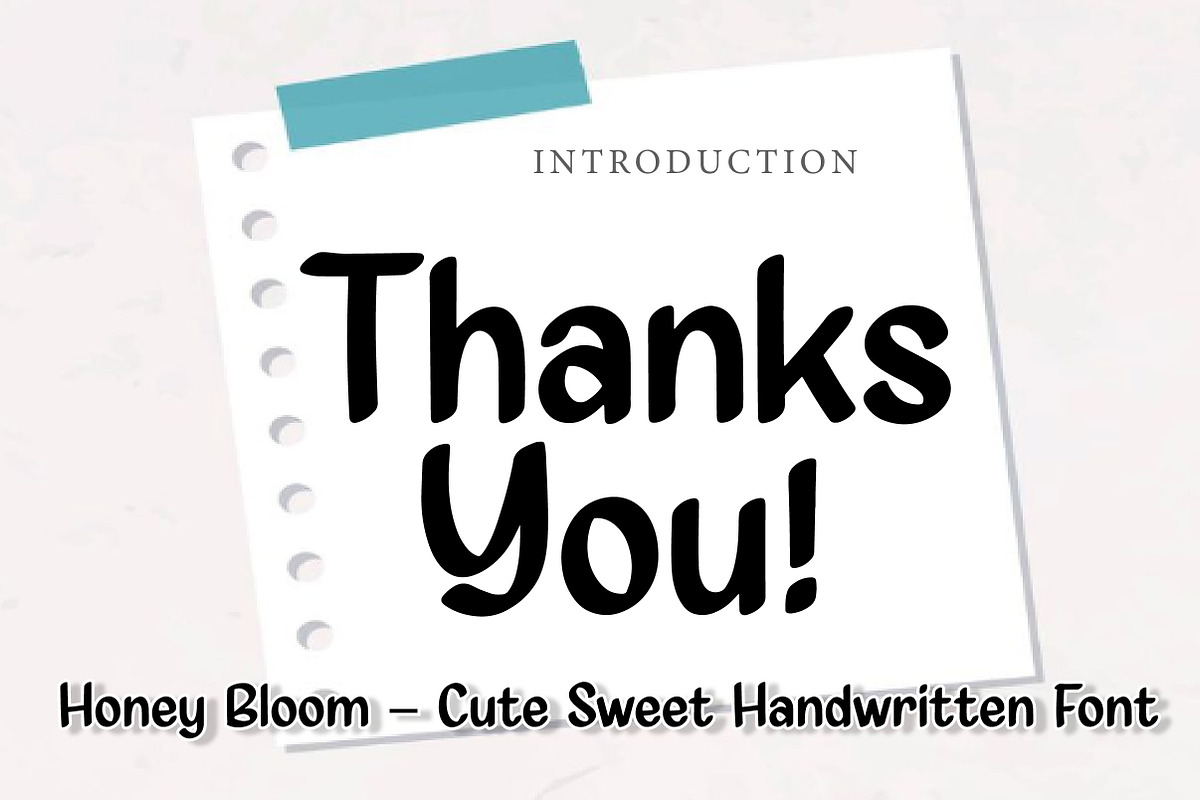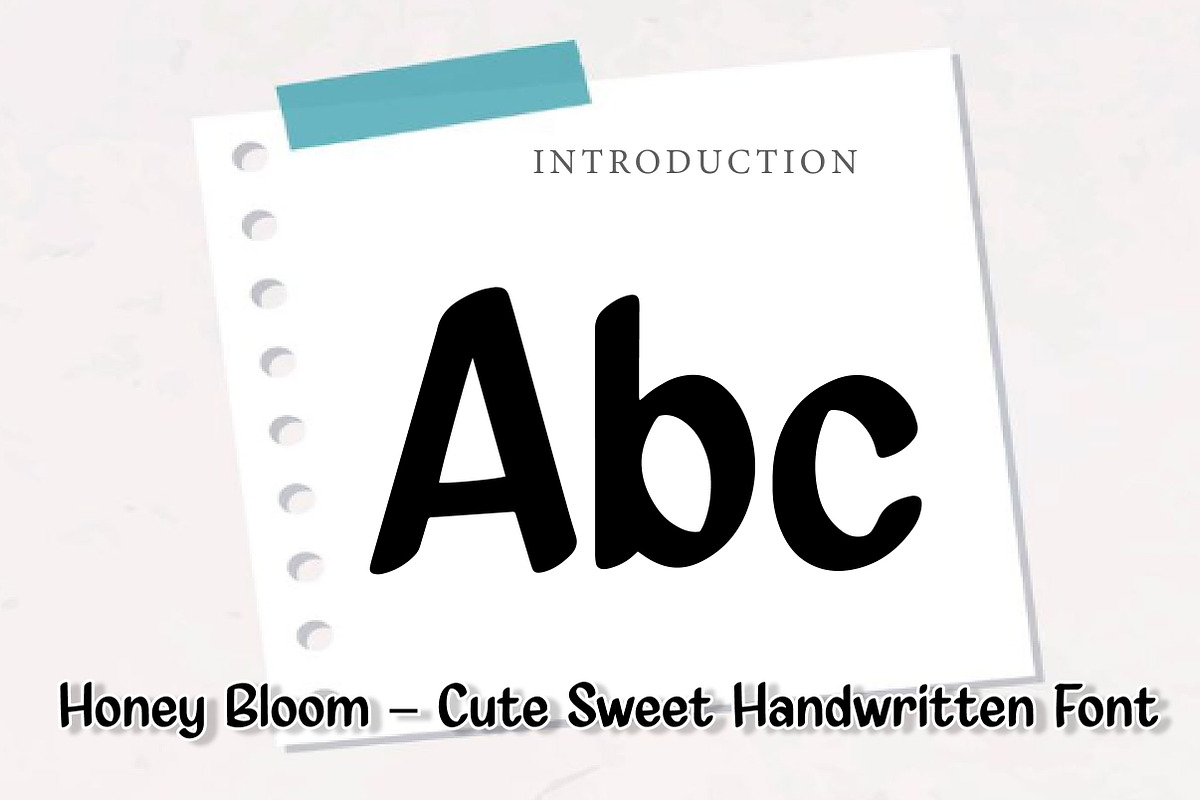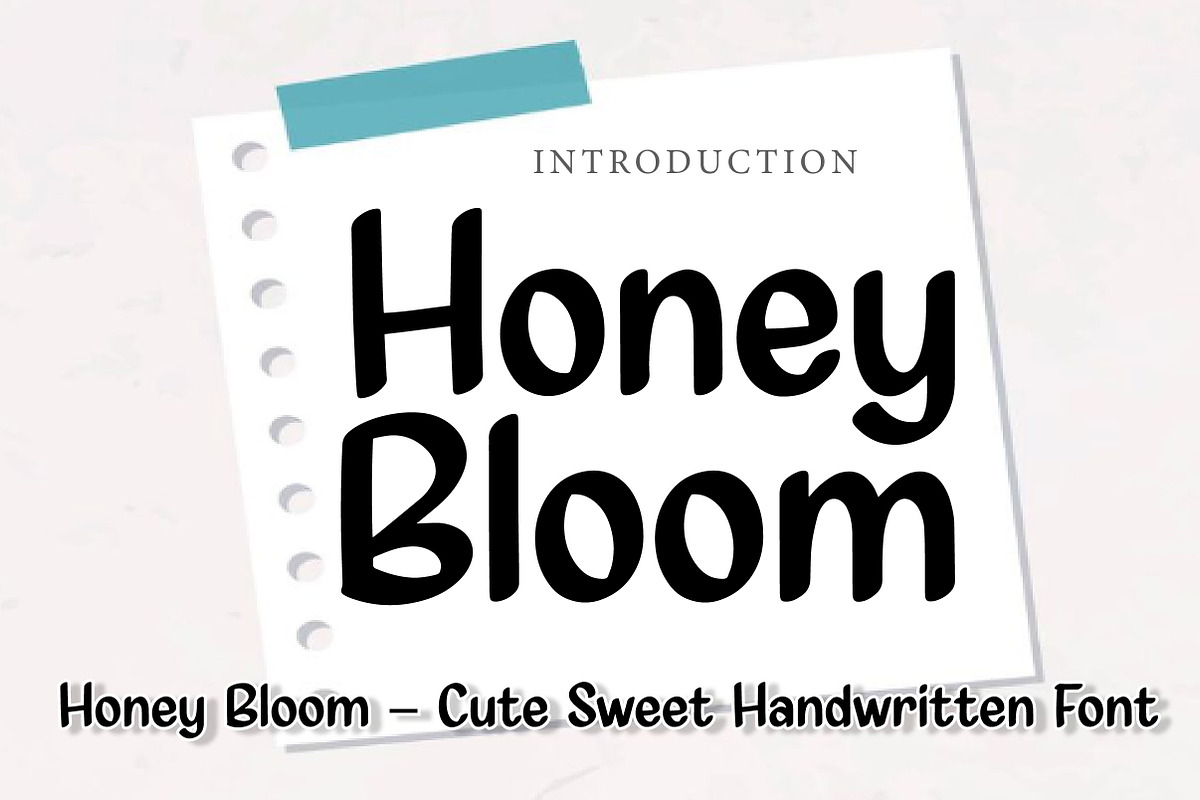
Honey Bloom
Honey Bloom – Cute Sweet Handwritten Font
Short Description
Honey Bloom is a cute, soft, and playful handwritten font, perfect for branding, packaging, invitations, kids designs, and charming creative projects.
Full Description
Honey Bloom is a sweet and charming handwritten font designed to bring warmth, softness, and personality into your designs. With its rounded strokes, smooth curves, and friendly letterforms, this font creates a lovely and approachable look that feels both playful and modern.
Its soft handwritten style makes Honey Bloom perfect for projects that need a cheerful and lovable touch. Whether you are designing product packaging, kids branding, greeting cards, invitations, social media graphics, stickers, or cute logo concepts, this font helps your typography feel more personal, eye-catching, and memorable.
The balanced shapes keep your text easy to read while adding a handcrafted charm that makes every design feel warm and inviting. Suitable for both print and digital use, Honey Bloom is a wonderful choice for designers who want a font that feels sweet, friendly, and full of character.
Perfect For Branding and logos Product packaging Kids and family designs Invitations and greeting cards Social media graphics Stickers and labels Posters and flyers Cute quotes and headlines Craft and DIY projects Friendly display typography Font Features Uppercase letters Lowercase letters Numbers & punctuation Cute handwritten style Soft and rounded shapes Friendly and playful look Perfect for display use